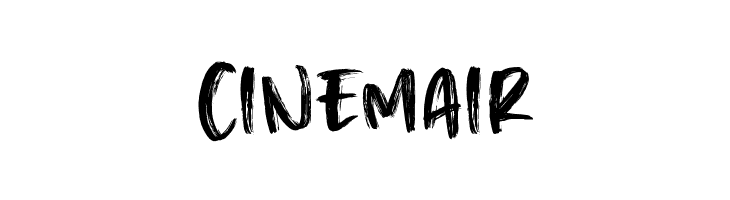
A bold, hand-painted style font with dynamic, brush-like strokes.
A bold, decorative font with gothic and medieval influences, featuring intricate serifs and flourishes.
A bold, hand-drawn script font with dynamic, interconnected strokes.
A bold, angular font with a leftward slant, offering a modern and dynamic style.
A futuristic font with circular and linear elements creating a modern, innovative look.
A bold, expressive script font with a modern, brush-like style.
A bold, geometric font with a futuristic and angular design.
An elegant and flowing script font with cursive strokes and sophisticated flourishes.